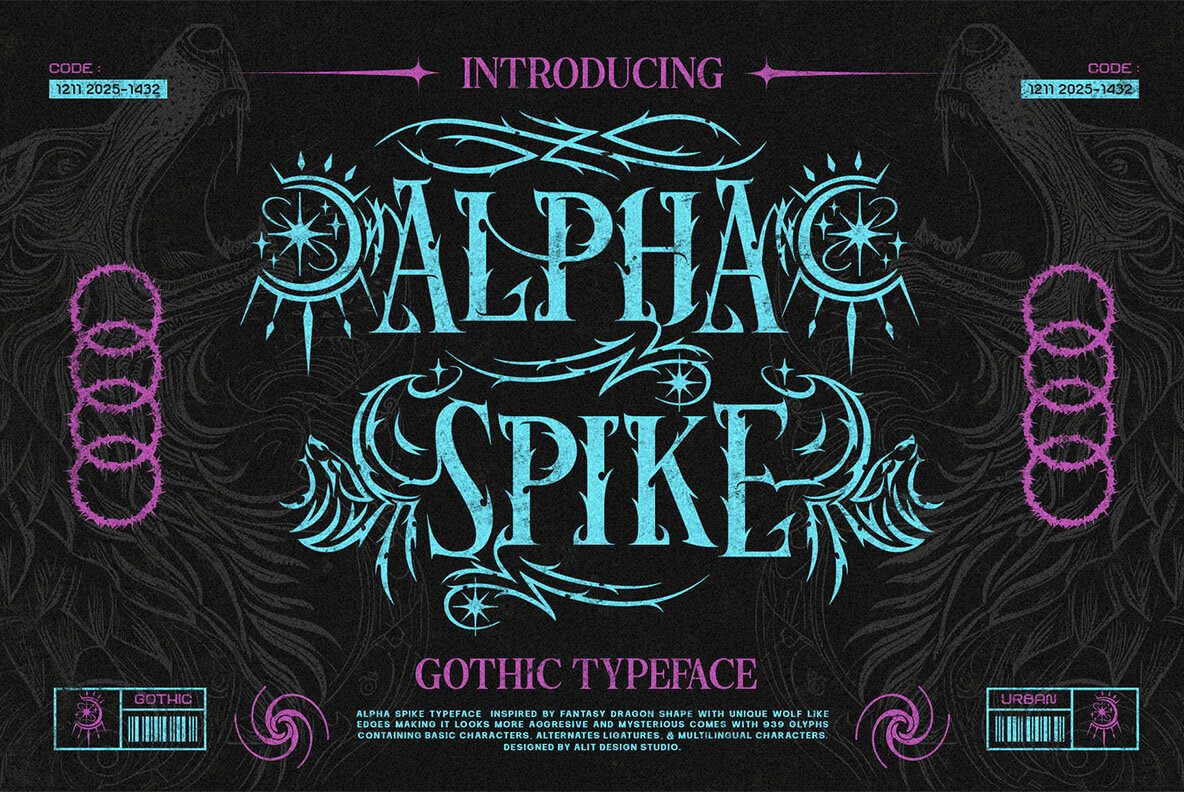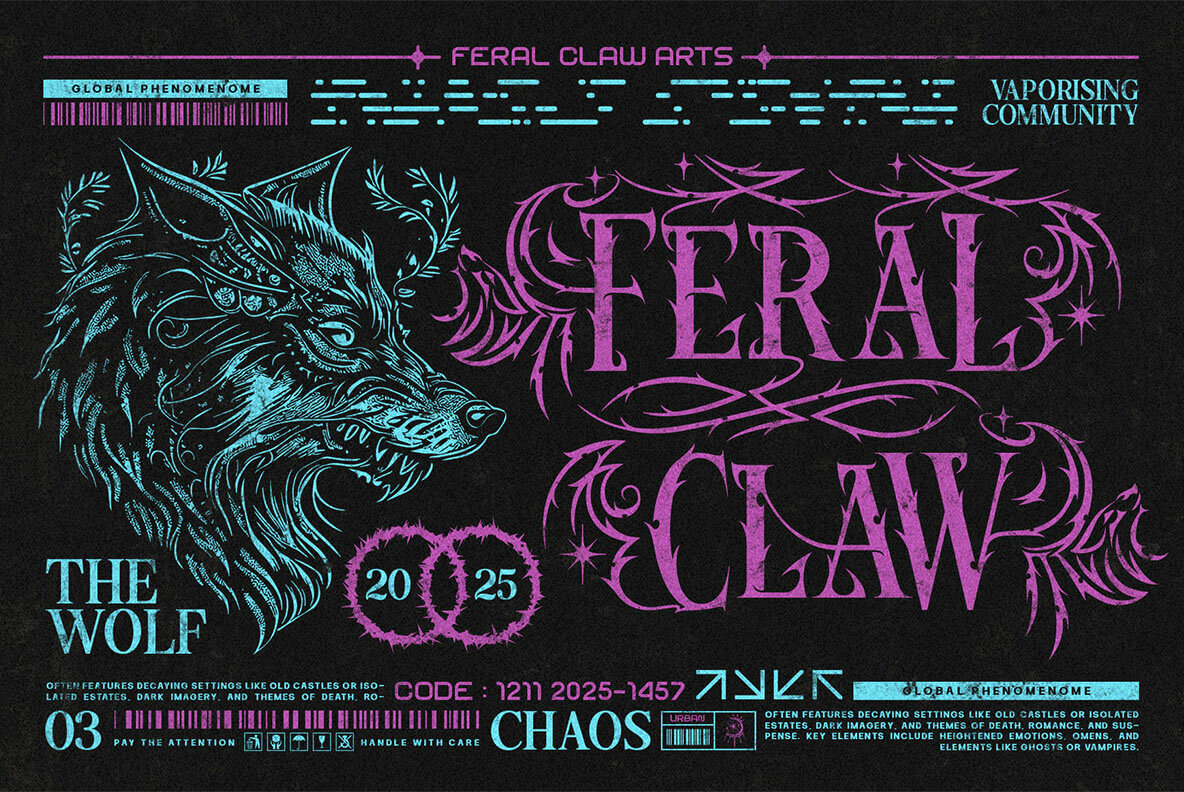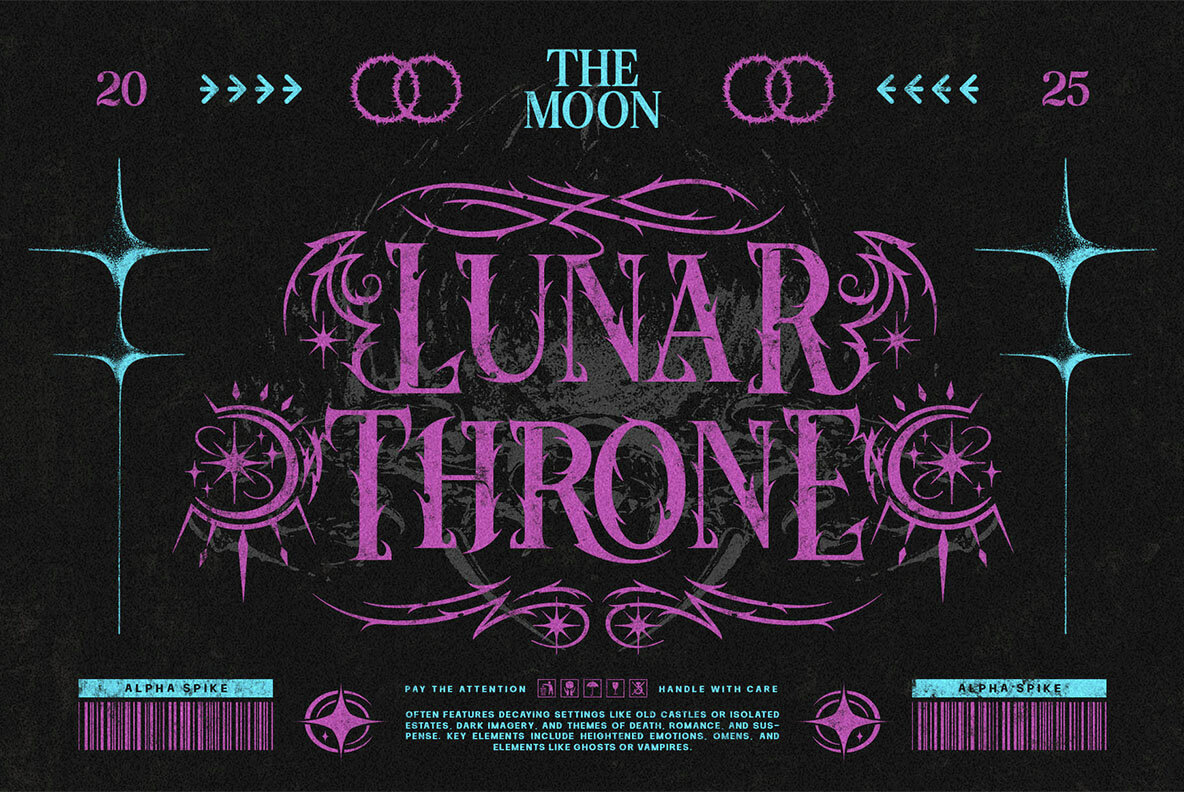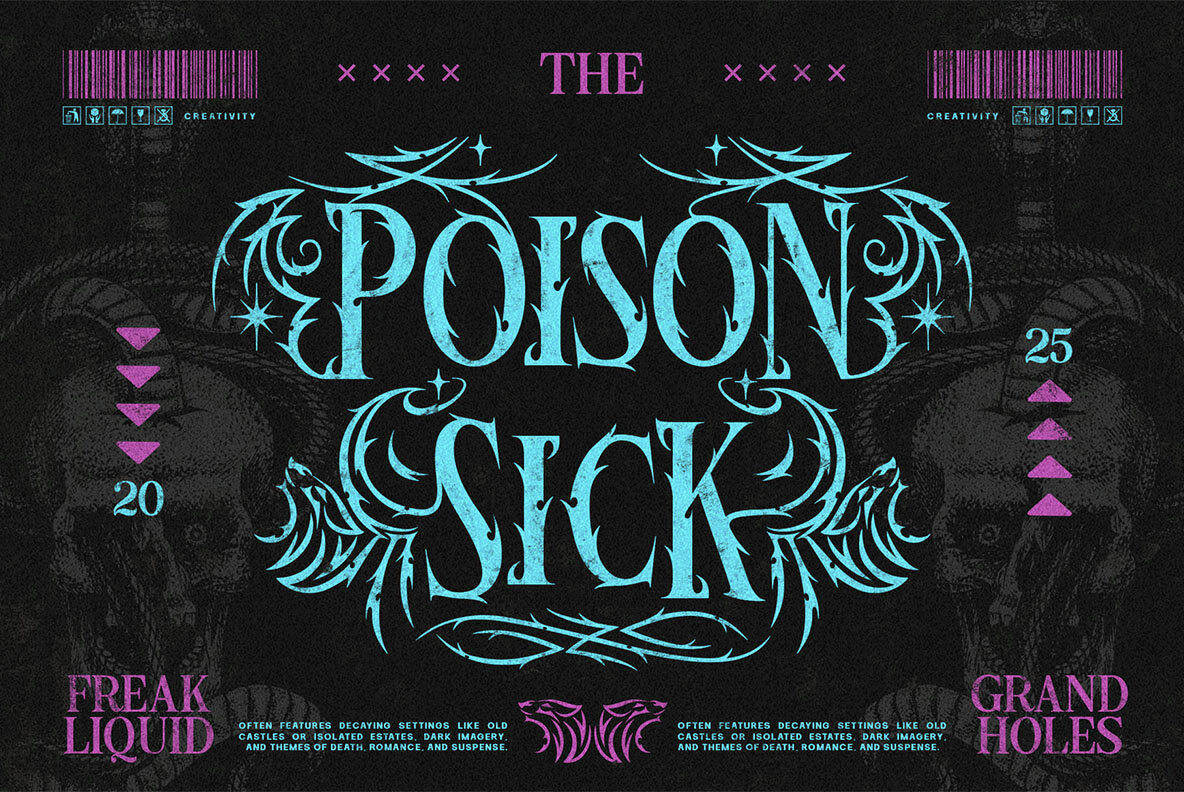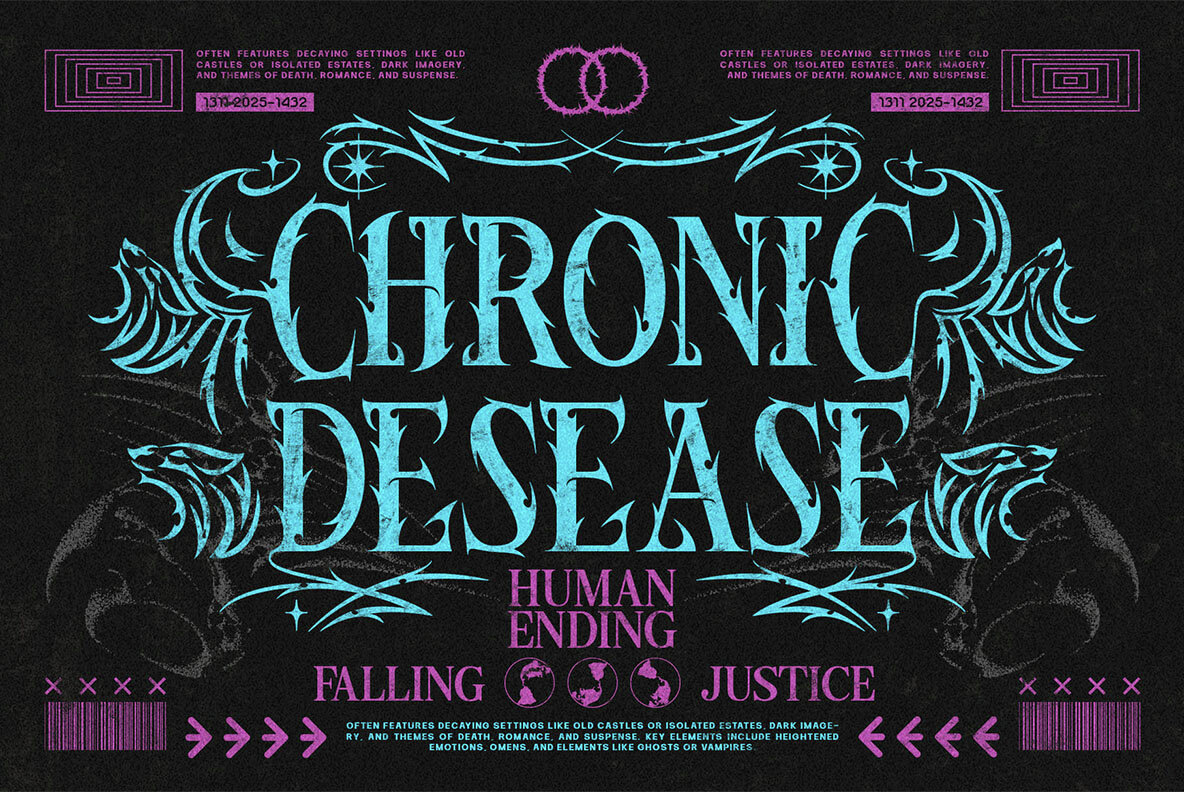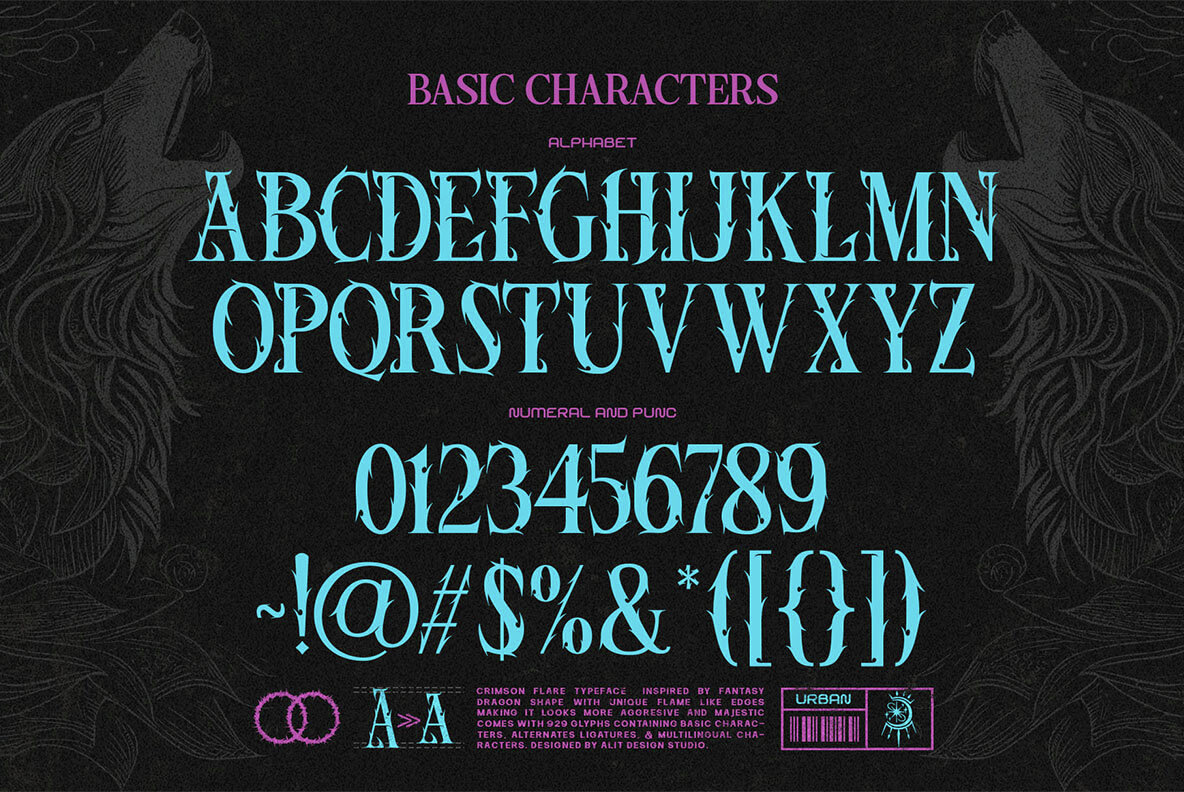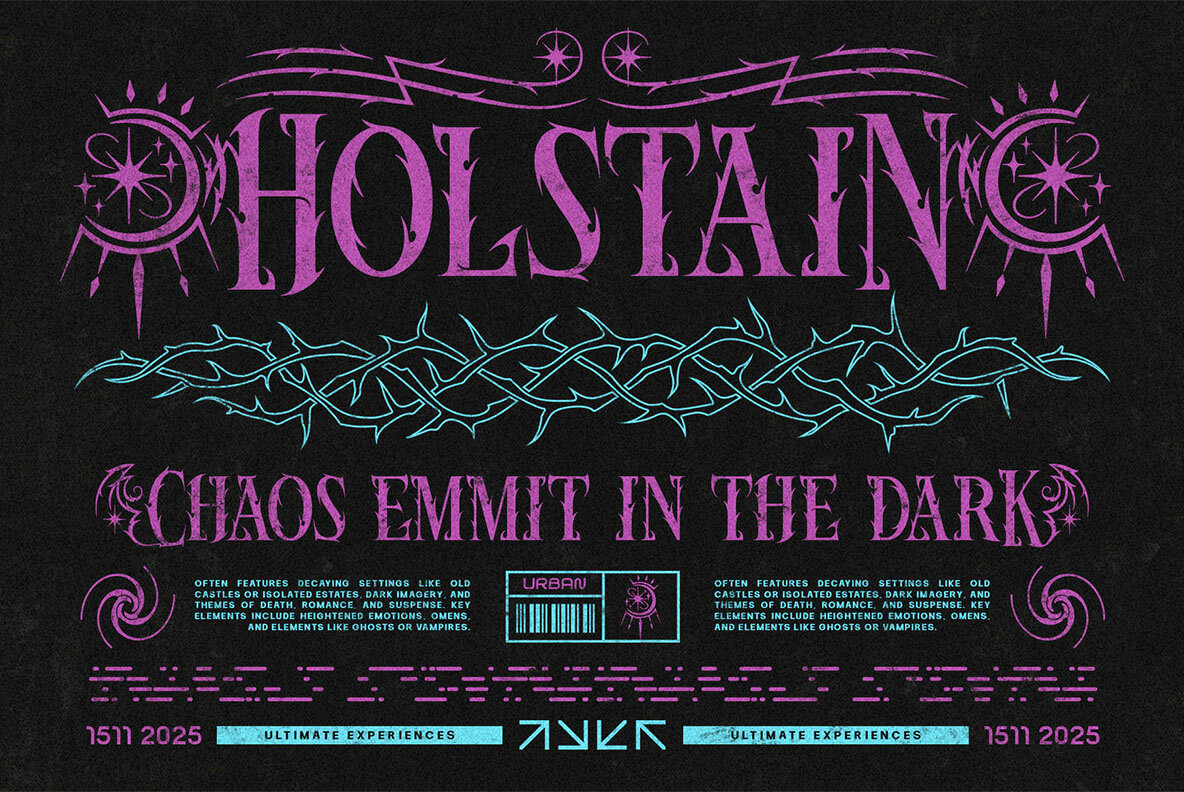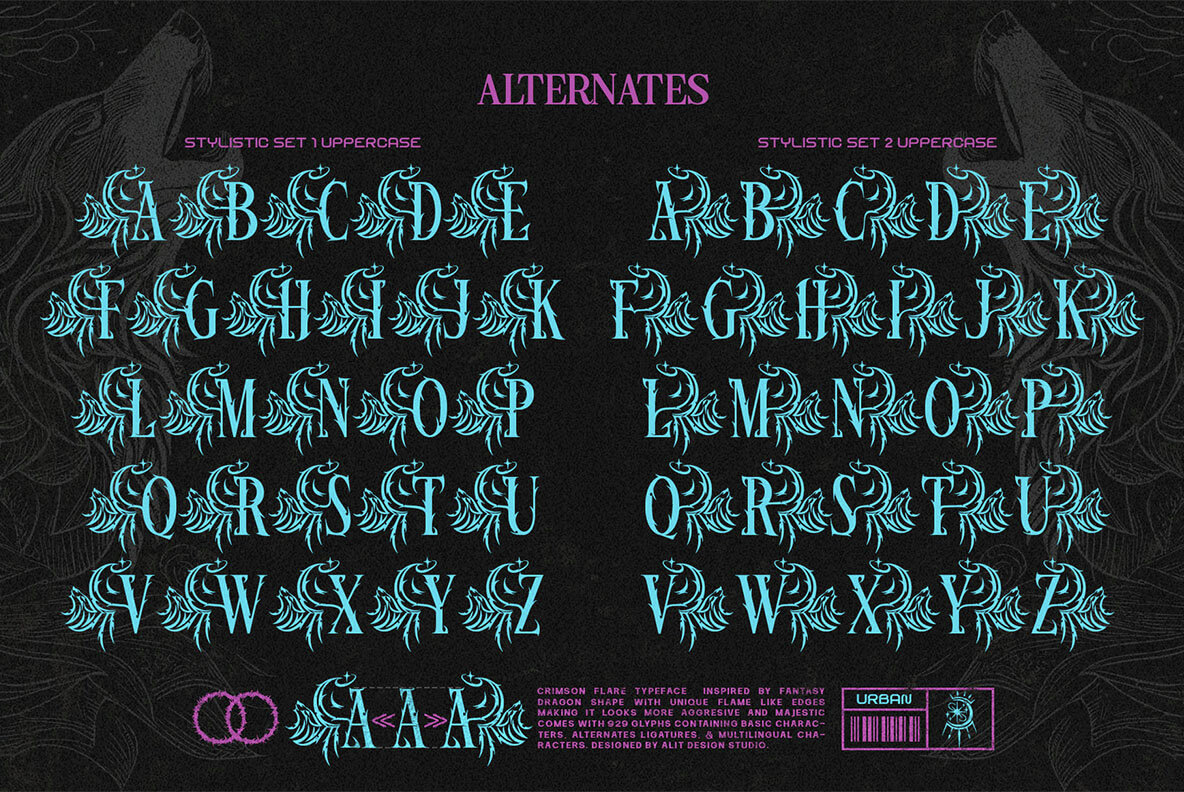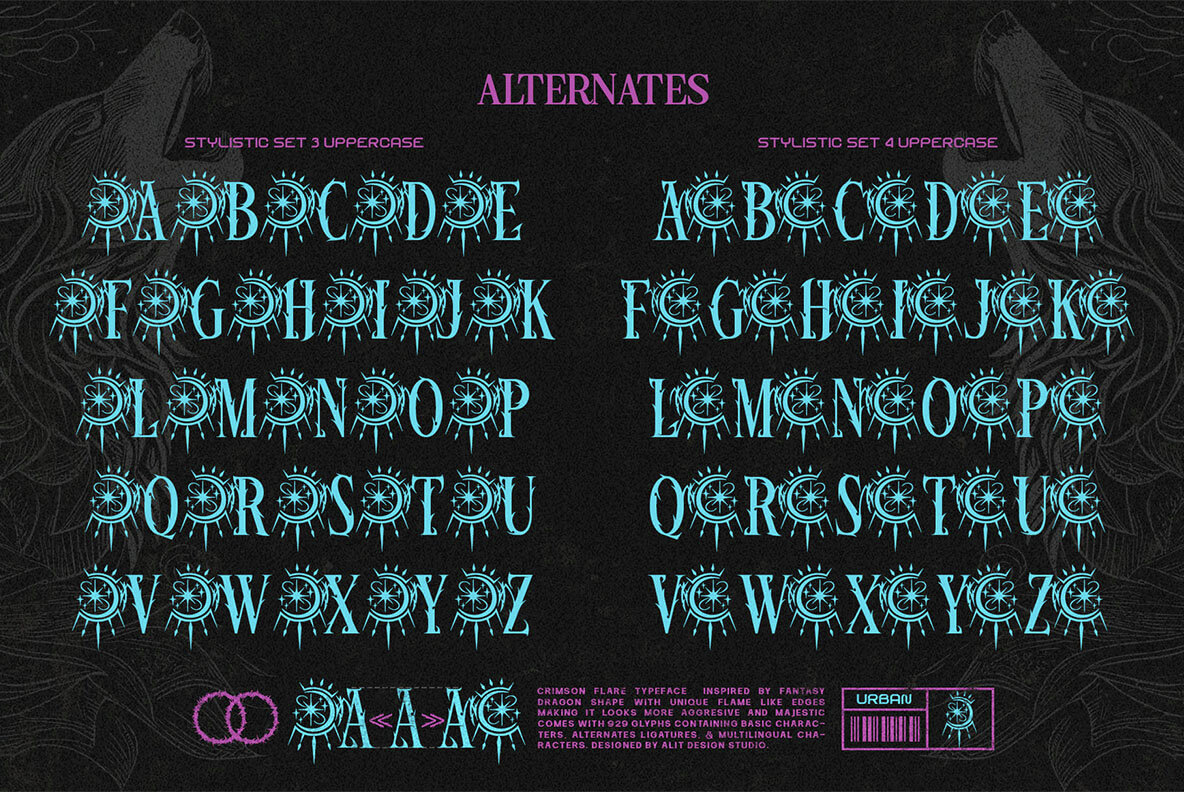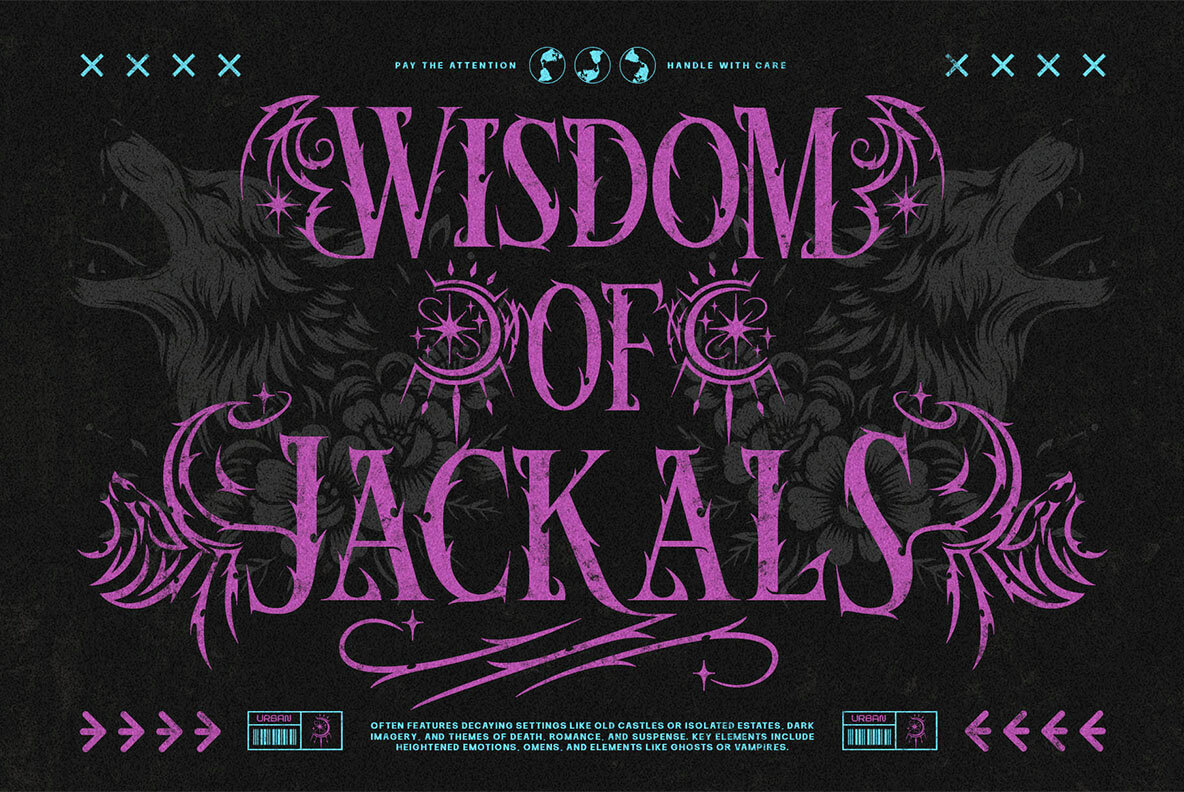
Alpha Spike Font
Alpha Spike Regular
Alpha Spike combines Gothic tradition with futuristic aggression, capturing the spirit of myths and the energy of modern subculture. Inspired by the angular beauty of dragon scales and the bite of wolf fangs, this typeface draws immediate attention with its razor-sharp terminals and flame-like contours. Alpha Spike excels in creating striking visuals for projects demanding power and intensity—ideal for metal band logos, high-end streetwear, or fantasy game posters. The Cyber-Gothic style fits seamlessly with Acid Graphics, Y2K-inspired visuals, and cyberpunk layouts. Its versatility lets it shift from ancient parchment effects to neon-bright, contemporary designs. The extensive glyph set and stylistic options make Alpha Spike an essential tool for designers who need expressive, unconventional typography. Alpha Spike is where Gothic elegance meets unmistakable intensity—crafted for designs that stand out and leave a lasting impression.Alpha Spike: Neo-Gothic Typography for Bold Design